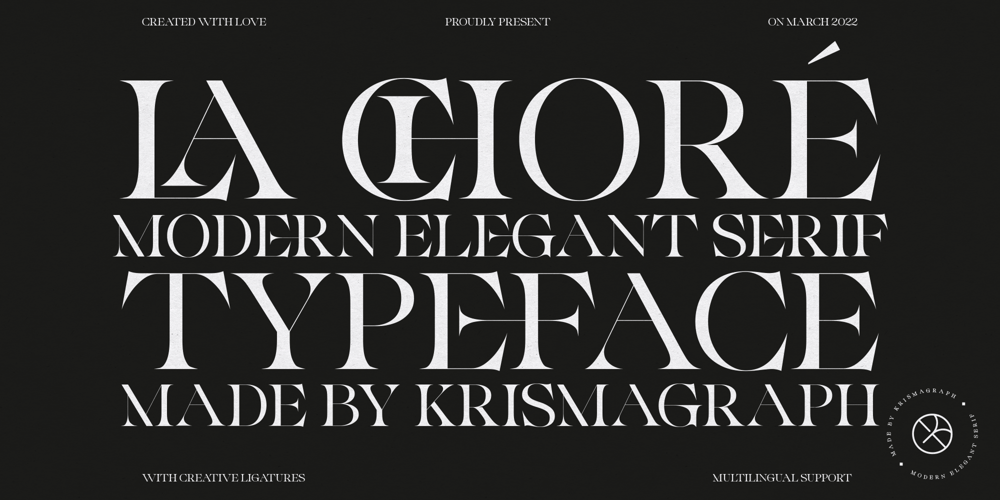
La Chore Typeface Font Family was designed by Ratna Krismawati and published by Krismagraph. La Chore Typeface contains 1 styles and family package options. La Chore is a modern & elegant serif typeface with a high contrast version of the famous Didot look that has been synonymous with fashion for decades. This font has multiple ligatures with multilingual fonts included. This font is modern and nostalgic and is perfect for logos, masterheads, sharp displays, magazines, blog titles, wedding invitations, social media, prints and quotes.Accessible in the Adobe Illustrator, Adobe Photoshop, Adobe InDesign, even work on Microsoft Word. PUA Encoded Characters – Fully accessible without additional design software. Fonts include multilingual support Image used : All photographs/pictures/vector used in the preview are not included, they are intended for illustration purpose only. Feel free to follow, like and share. Thanks so much for checking out my shop!If you need a custom license or have questions, please email to: krismagraph@gmail.com